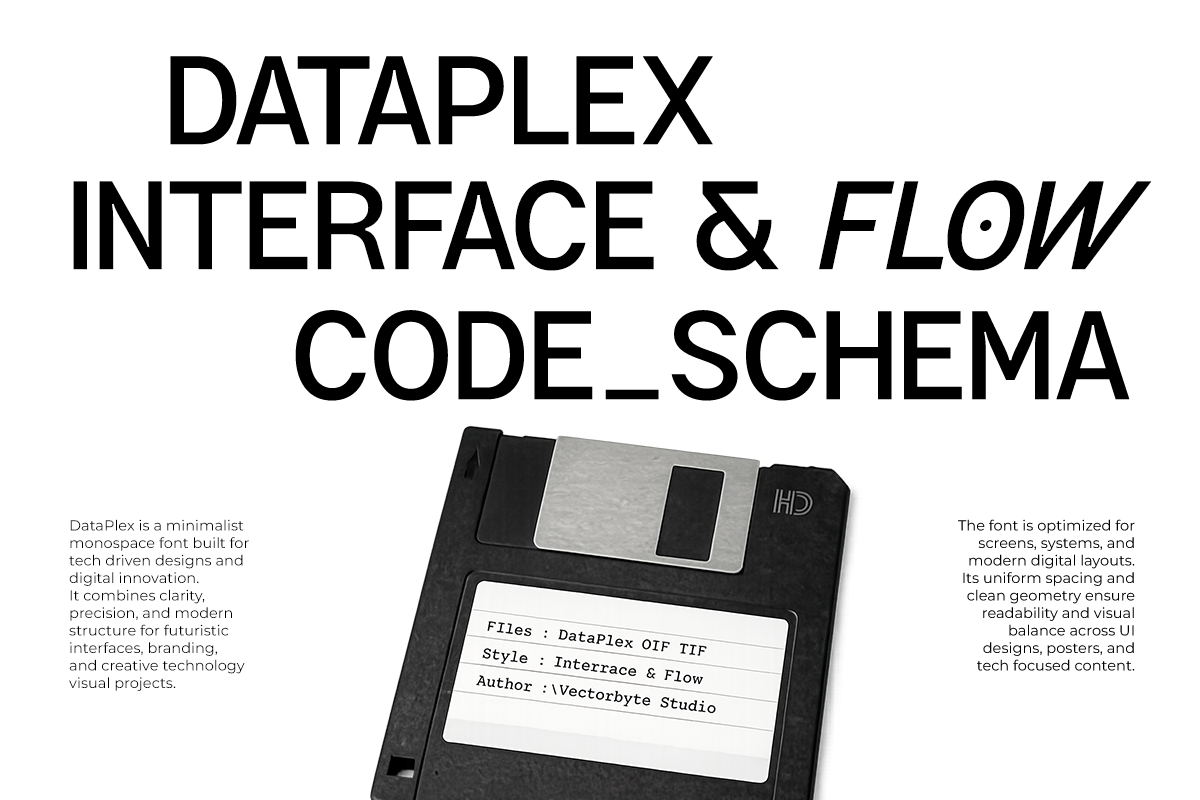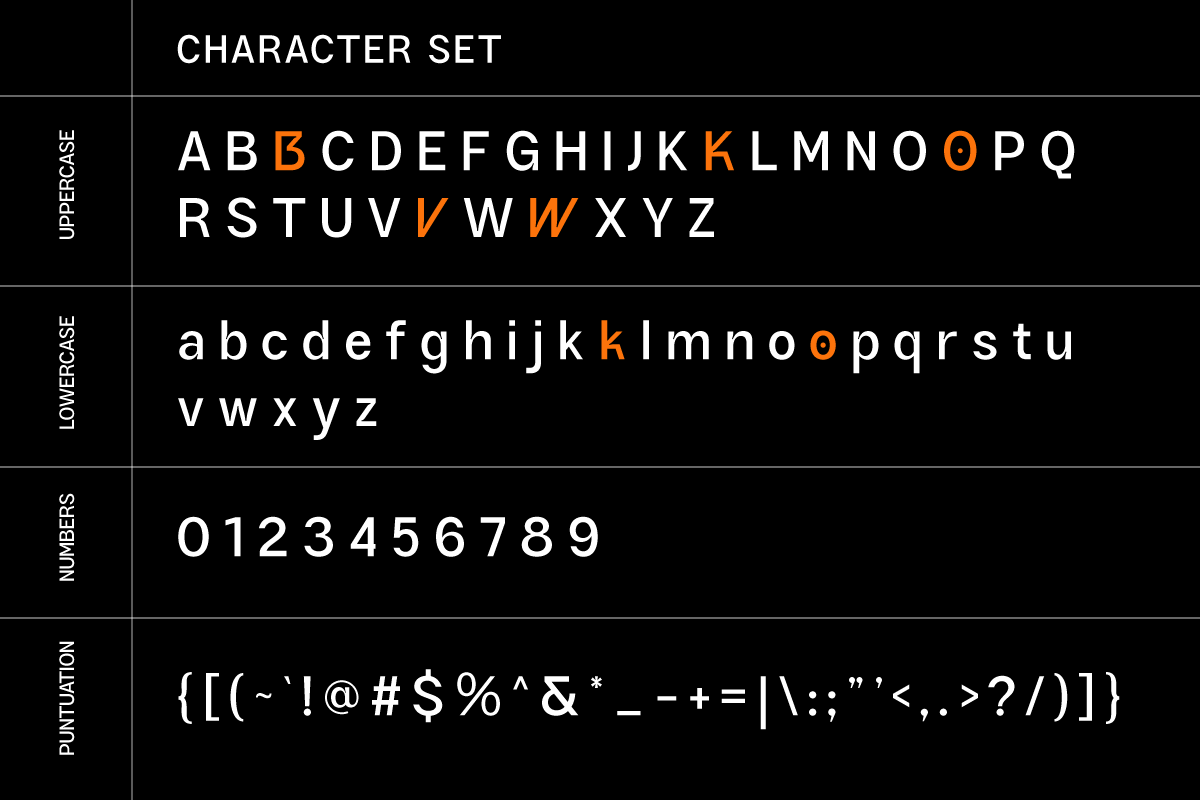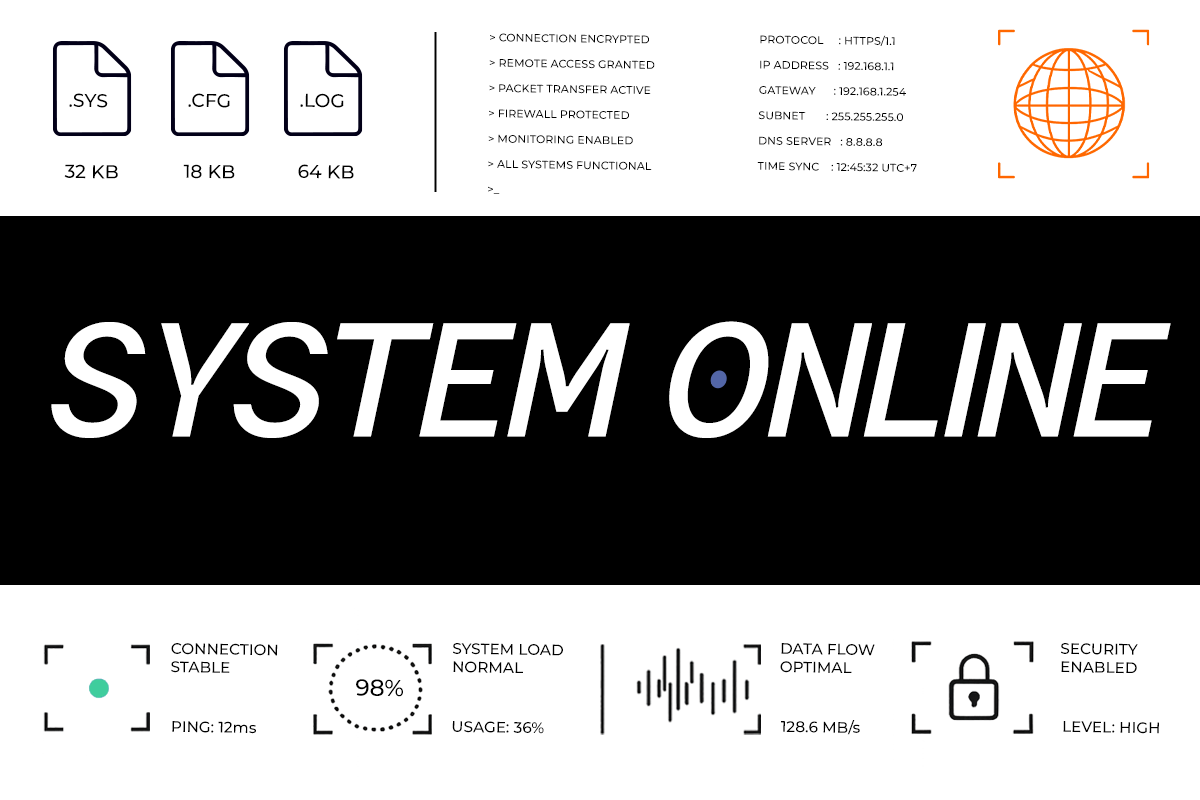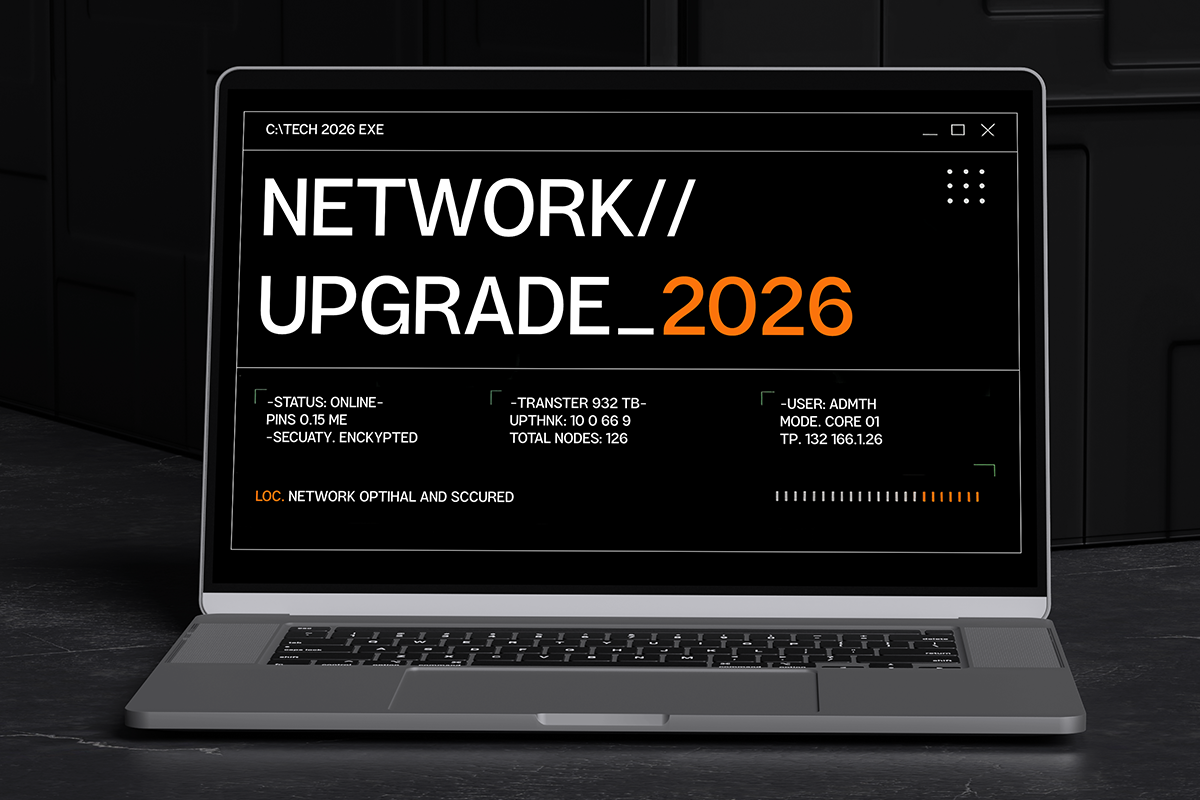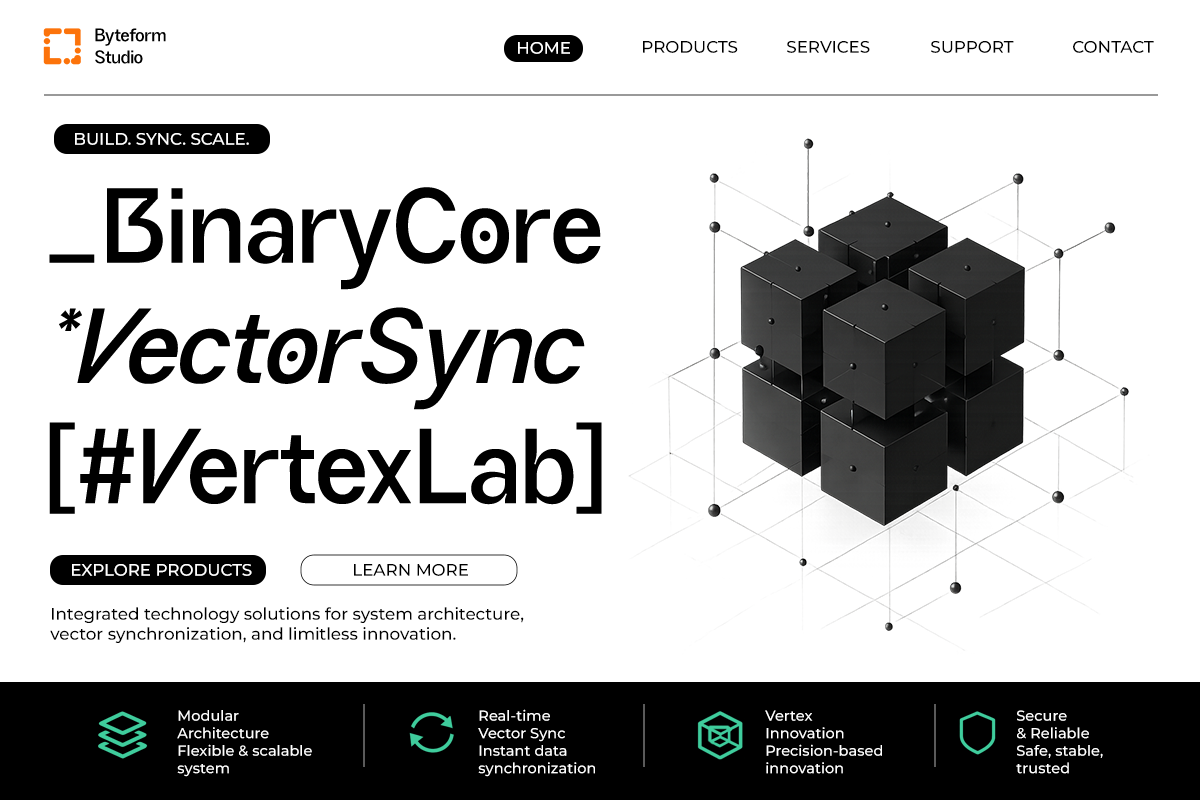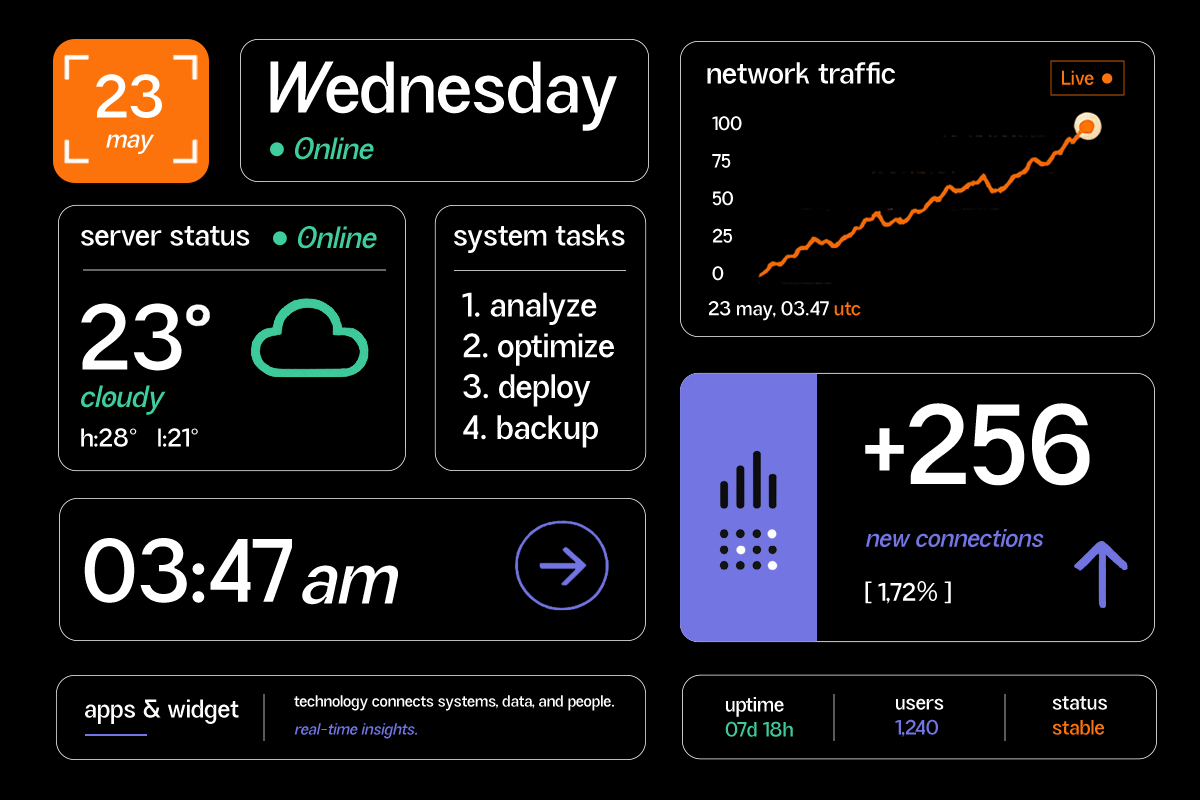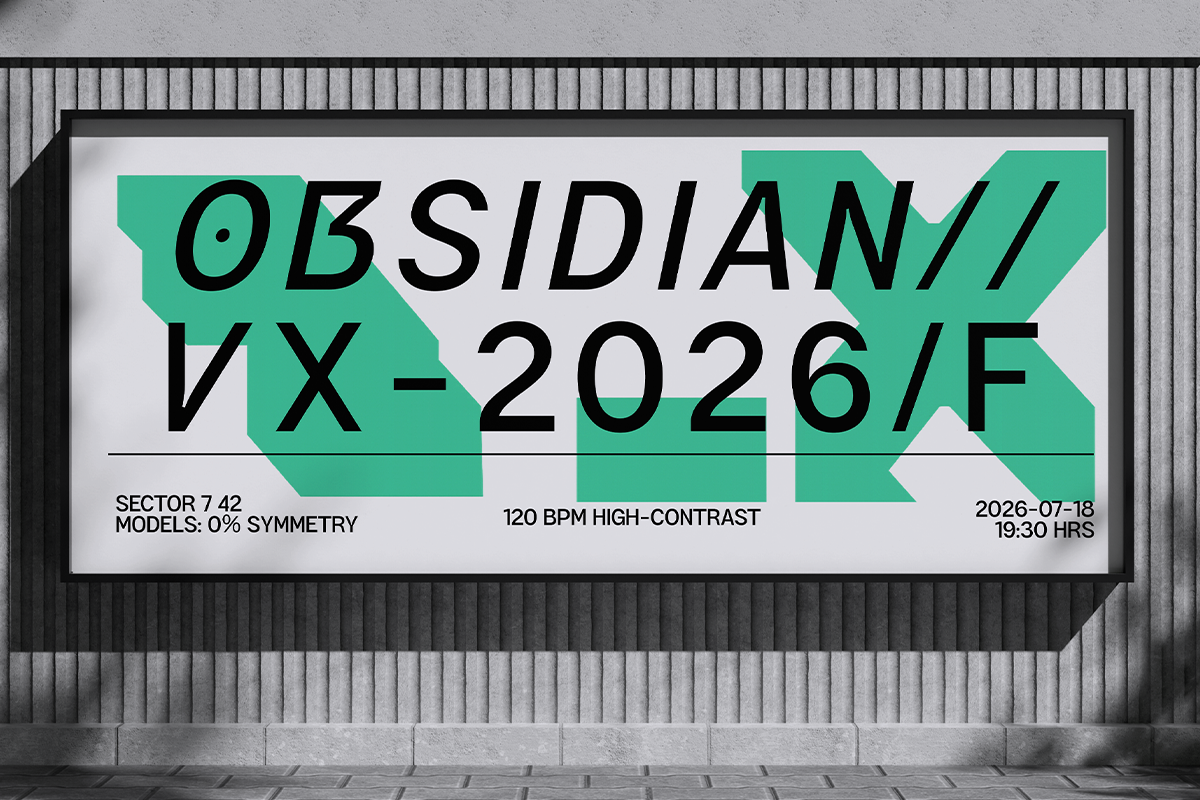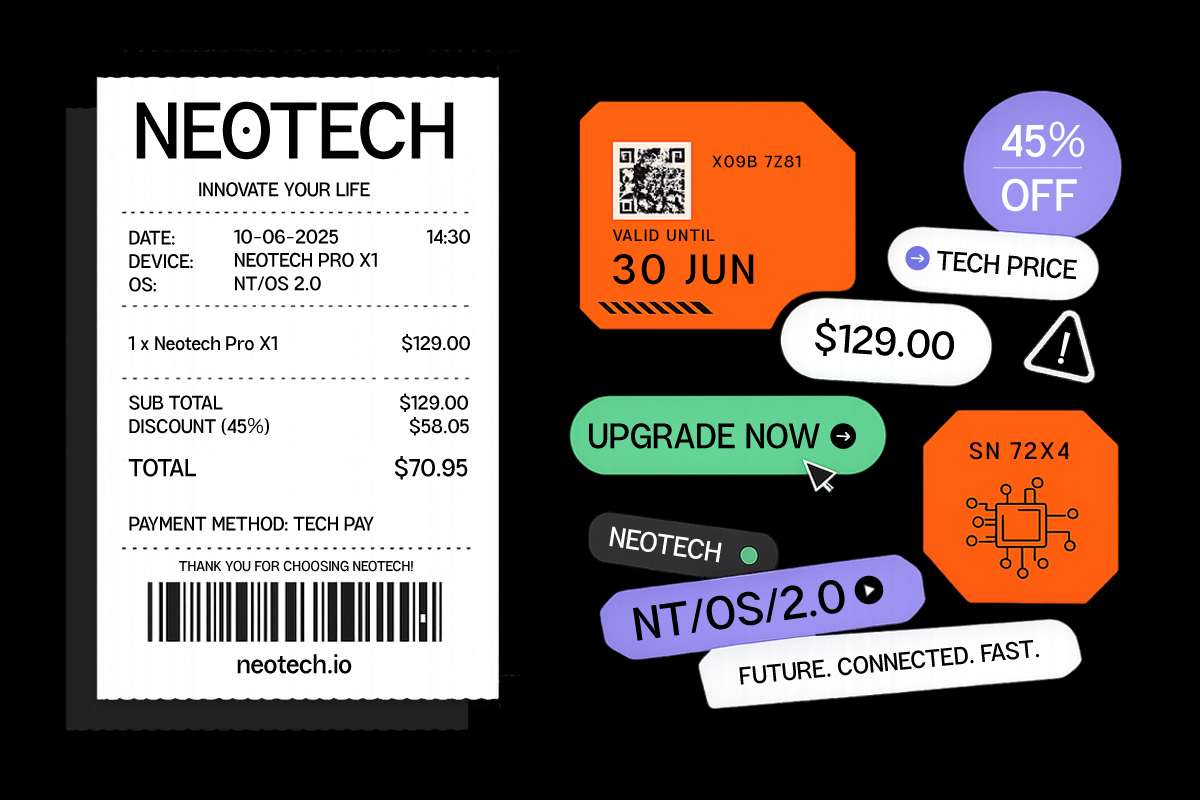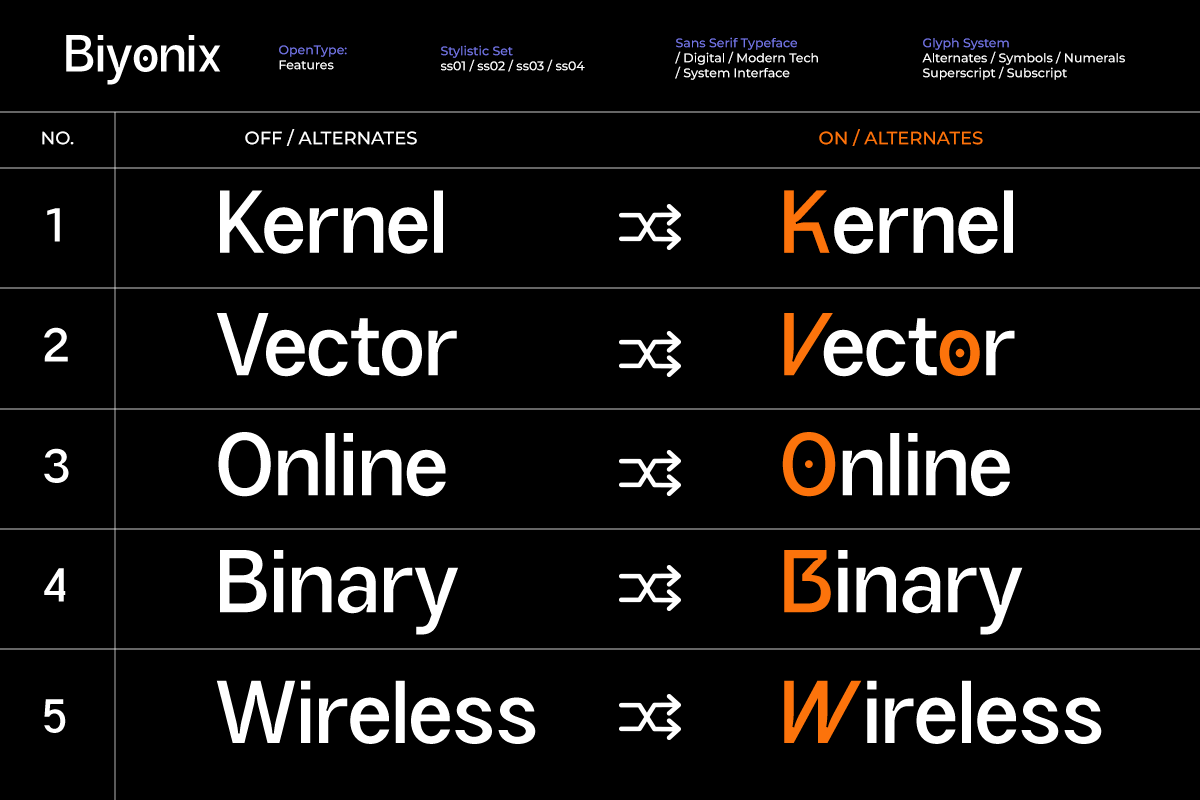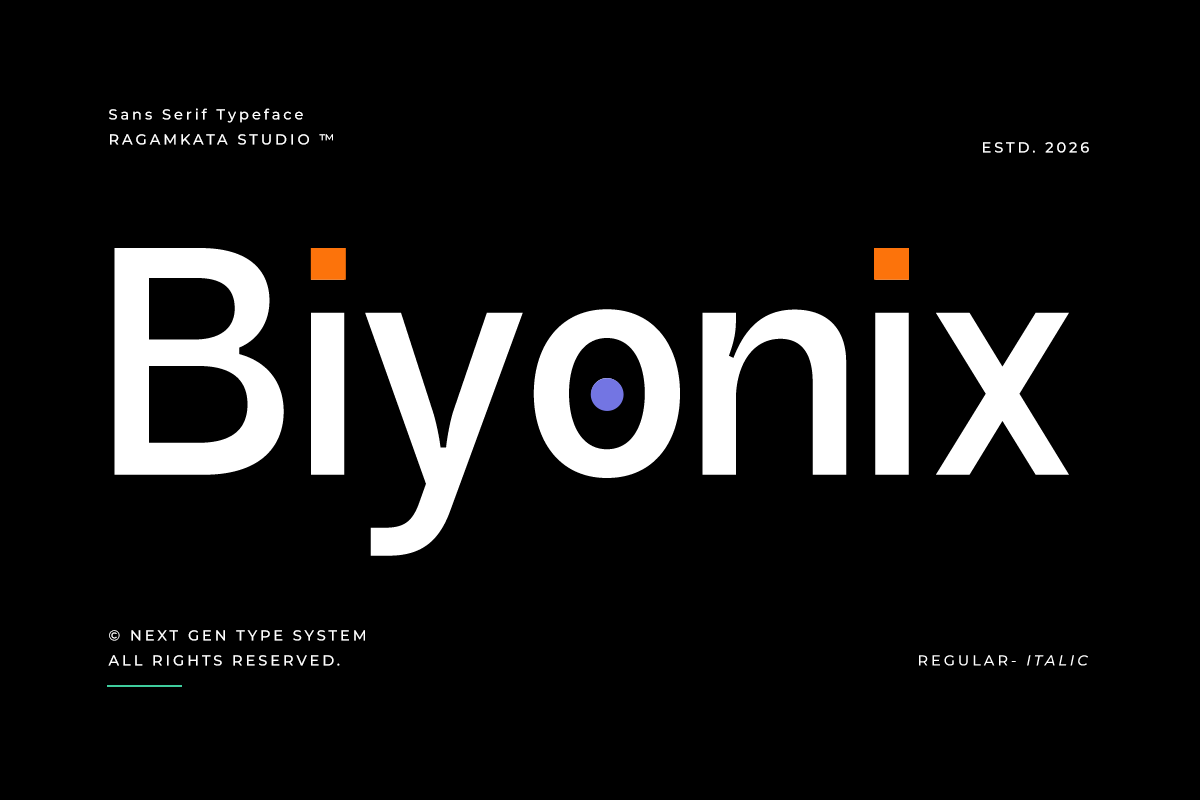
Biyonix – Futuristic Tech Sans Font
Biyonix is a futuristic sans serif font engineered for modern digital experiences, technology branding, and next-generation interfaces. Featuring clean geometric construction, subtle techno-inspired details, and powerful readability, Biyonix delivers a sleek visual identity that feels innovative, intelligent, and forward-thinking.
Designed for startups, AI platforms, software companies, gaming projects, cybersecurity brands, dashboards, UI/UX systems, and digital products, Biyonix balances minimalism with futuristic character. The included stylistic alternates allow designers to create dynamic logos, distinctive wordmarks, and unique branding systems while maintaining a professional and highly functional appearance.
Whether you're creating app interfaces, technology posters, web designs, product packaging, futuristic presentations, or modern corporate branding, Biyonix provides the versatility and precision needed for contemporary creative projects. Its strong visual presence, clean proportions, and advanced OpenType features make it an essential typeface for designers working in technology, innovation, and digital communication.
Regular and Italic Style
Number, Symbol, and Punctuation